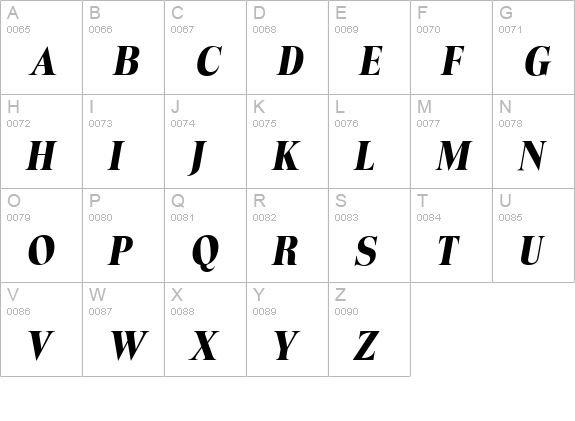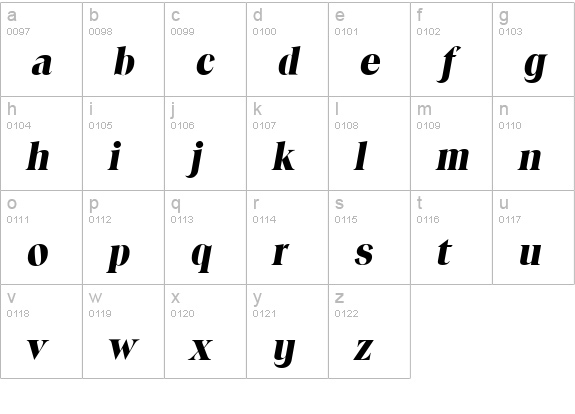
ToledoSerial-Xbold-Italic Font Details
ToledoSerial-Xbold-Italic is a distinctive, italic variant in the ToledoSerial typeface family \xE2\x80\x94 well suited to design and typography projects.
ToledoSerial-Xbold-Italic is a striking and bold font that exudes a sense of modernity and sophistication. Its unique italicized style adds a touch of elegance to any design project, making it perfect for headlines, titles, and branding materials. The sharp, clean lines of ToledoSerial-Xbold-Italic make it highly legible and eye-catching, ensuring that your message will stand out. Best of all, ToledoSerial-Xbold-Italic is available for free download at FontsMarket.com. This means that you can easily access this stylish font for all your creative endeavors without any cost. Don't miss out on the opportunity to enhance your designs with the sleek and contemporary ToledoSerial-Xbold-Italic font today!